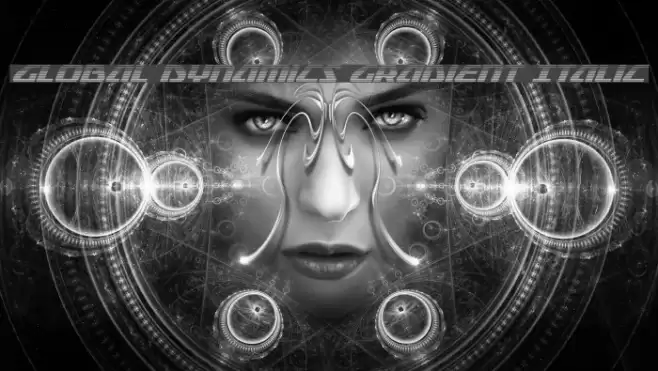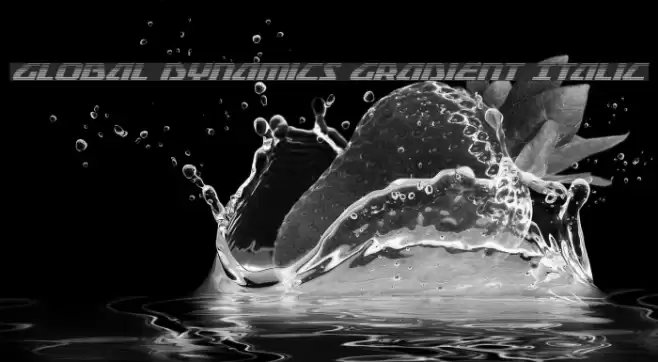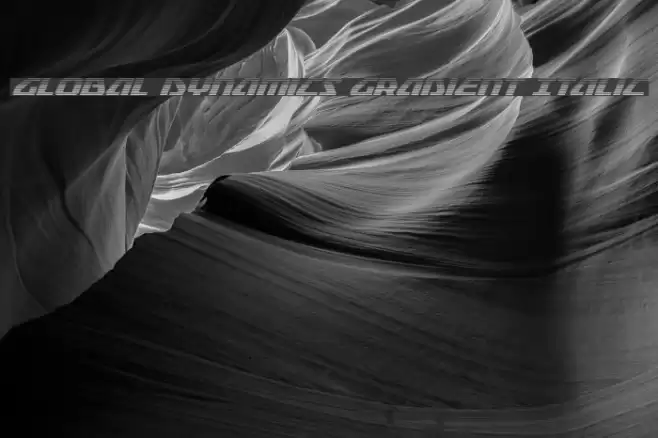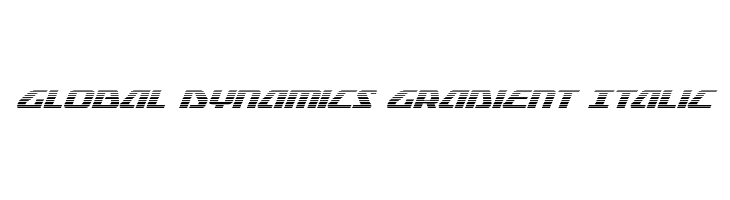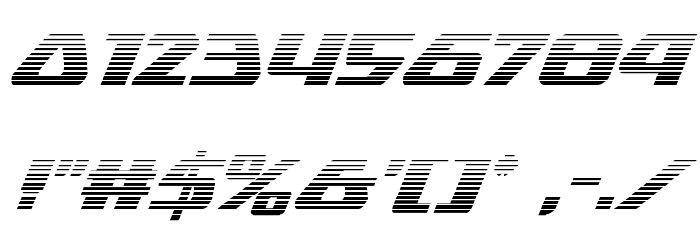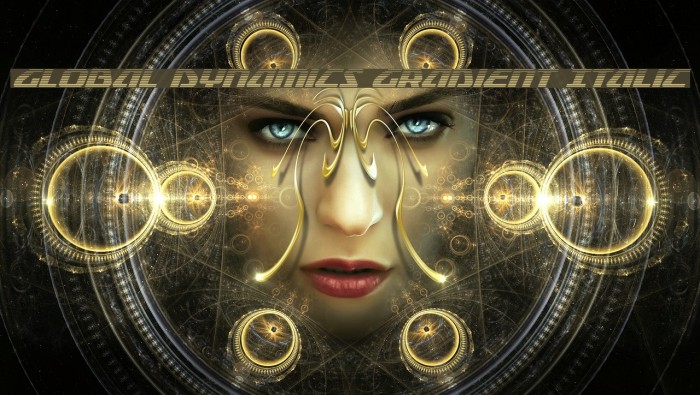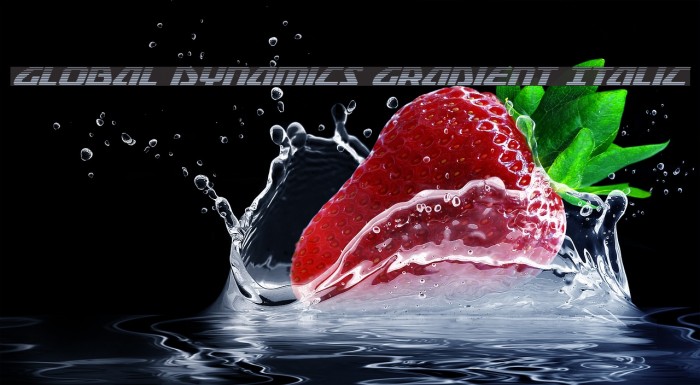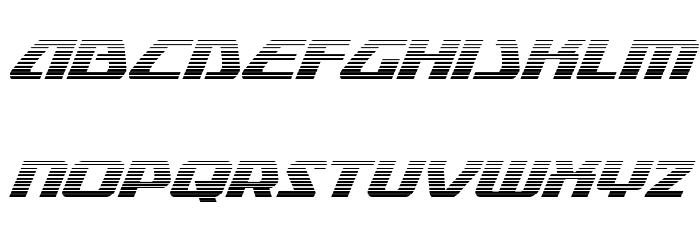
Global Dynamics Gradient Italic Font
Global Dynamics Gradient Italic Description
This font features a dynamic and futuristic design with a gradient effect that gives each character a sense of movement and speed. The italicized style enhances its modern and sleek appearance, making it ideal for projects that require a bold and innovative look. The characters are composed of horizontal lines that create a striped pattern, adding depth and texture. This unique design is perfect for capturing attention and conveying a sense of forward-thinking and technology-driven themes.
A dynamic, futuristic italic font with a gradient effect and striped pattern from Uncategorized fonts.
- Proposed Projects: Ideal for technology branding, sci-fi posters, video game titles, and modern advertising campaigns.